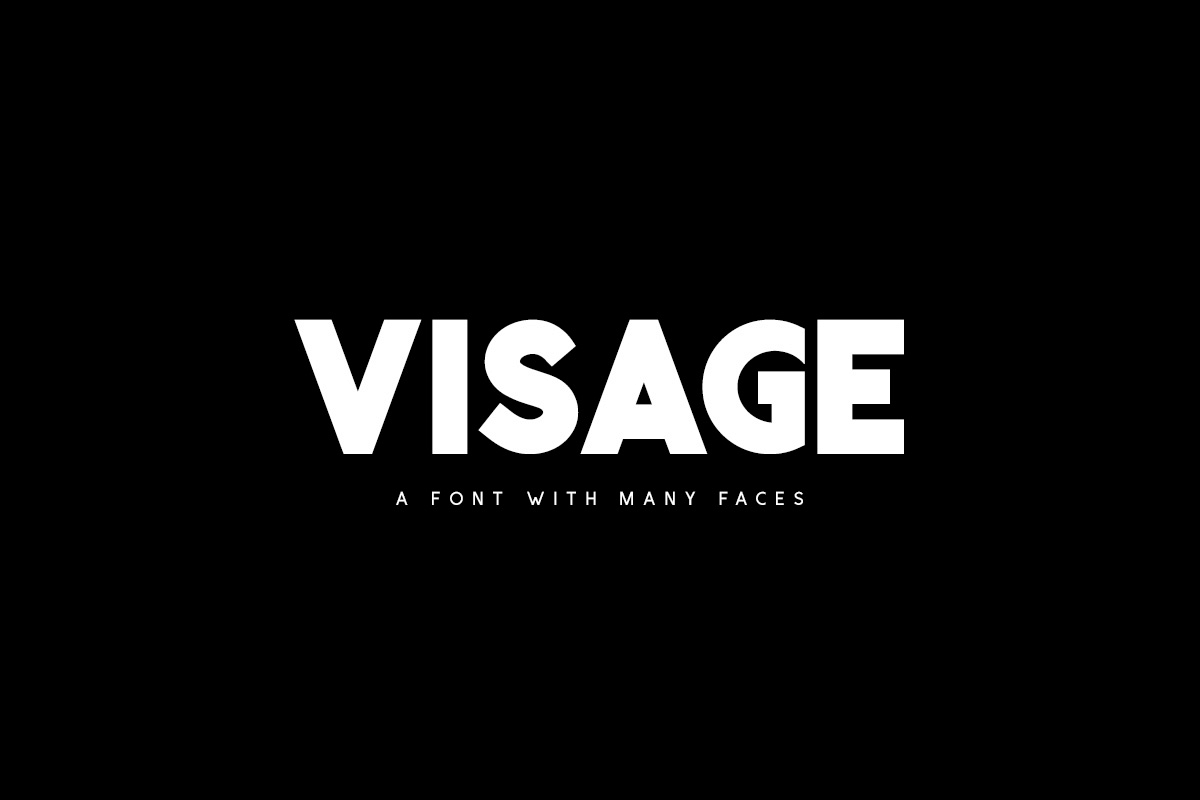
Visage Typeface
Visage is a sans serif display font with two weights. Both weights have unique styles totalling 10 fonts. The font includes uppercase multilingual letters, numbers and punctuation.